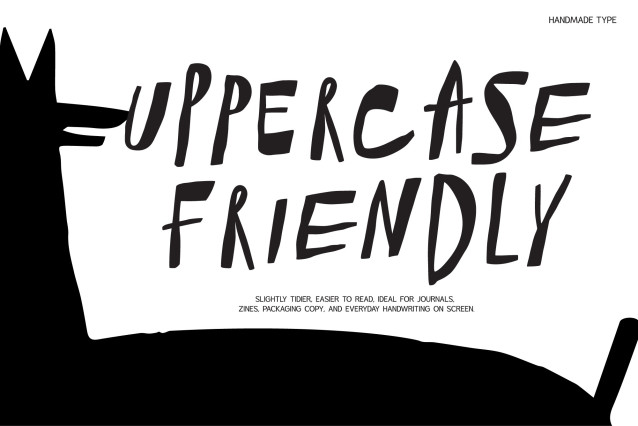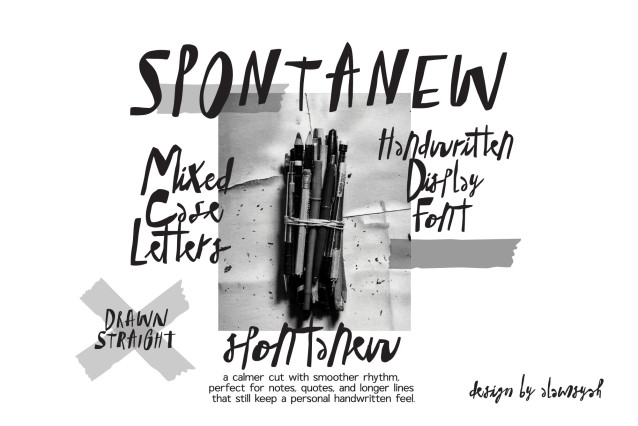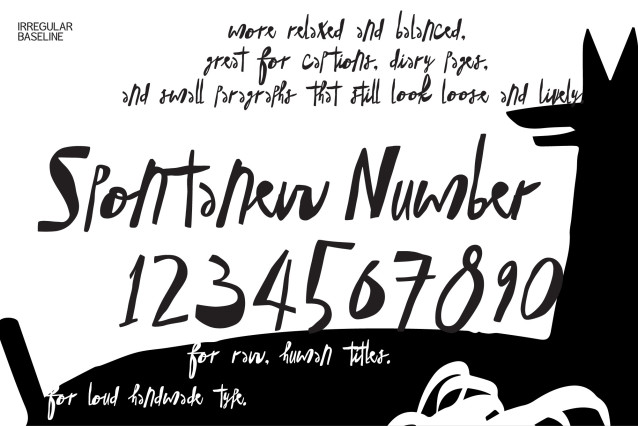
Spontanew Font
Spontanew Font a handmade typeface designed to bring your creative projects to life. This font captures the authentic essence of everyday handwriting, blending a bold, playful aesthetic with exceptional legibility.